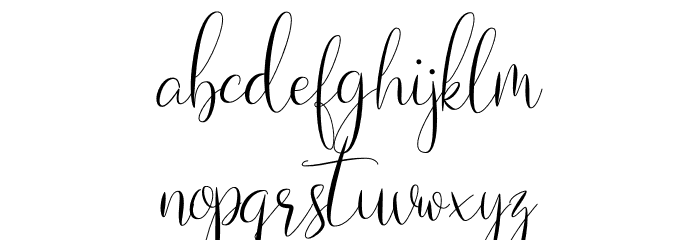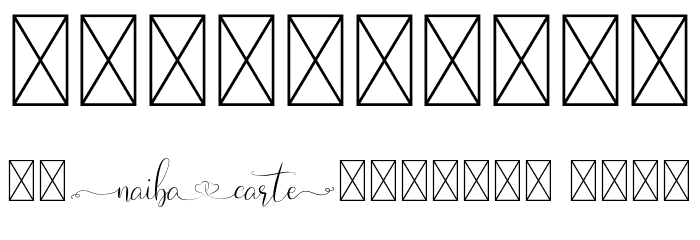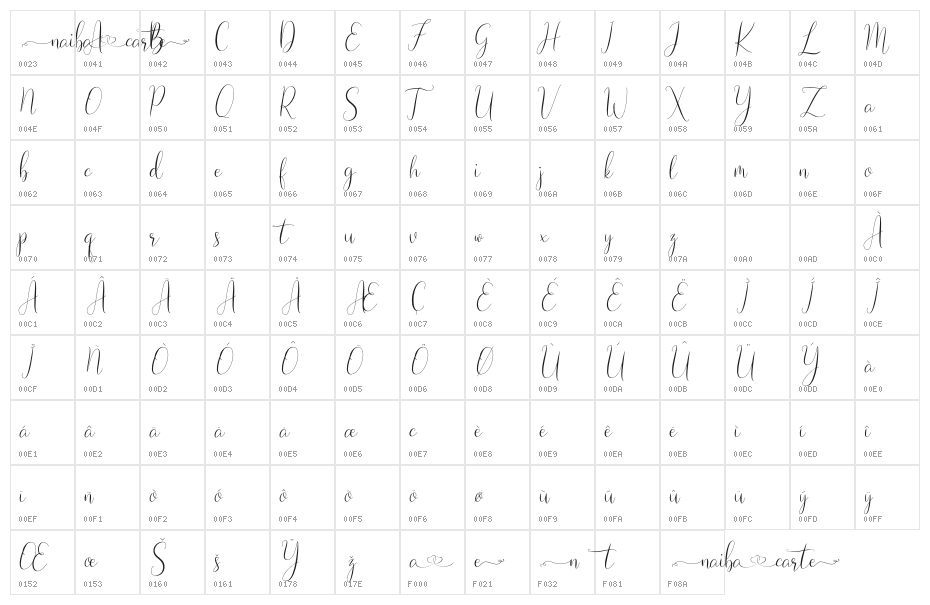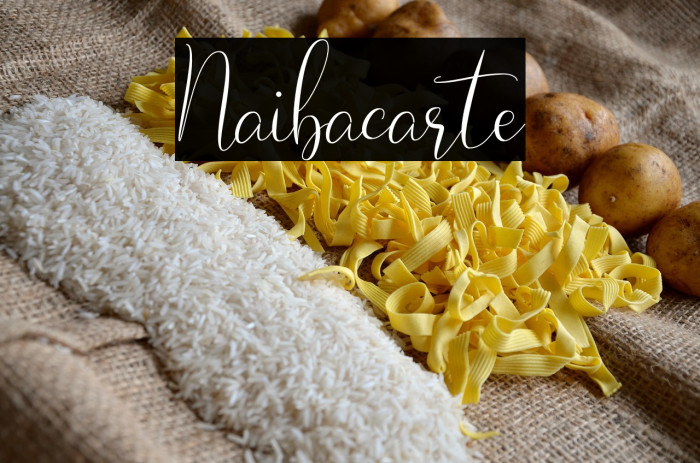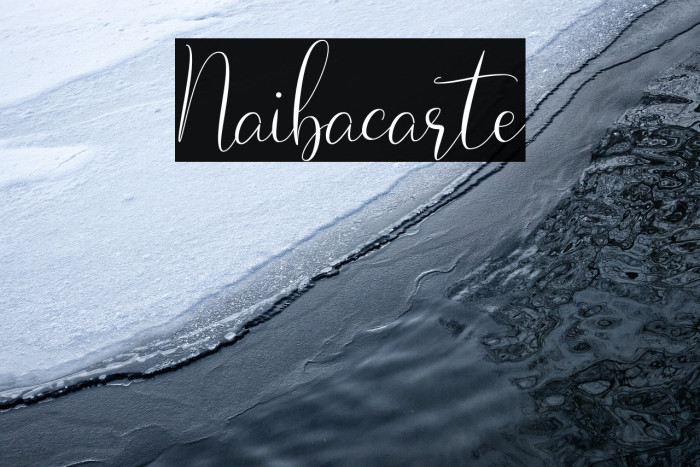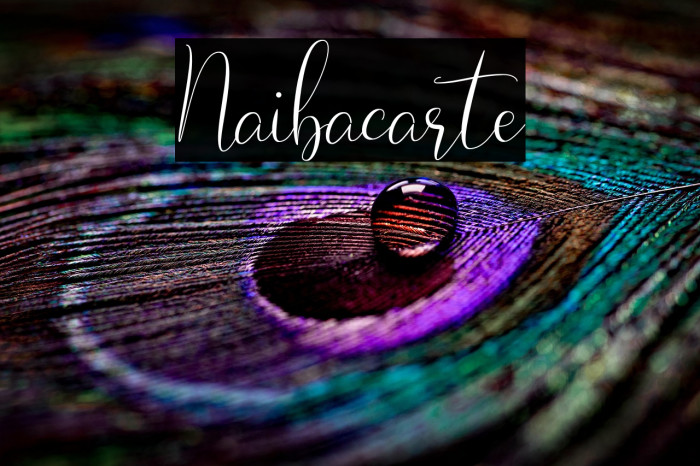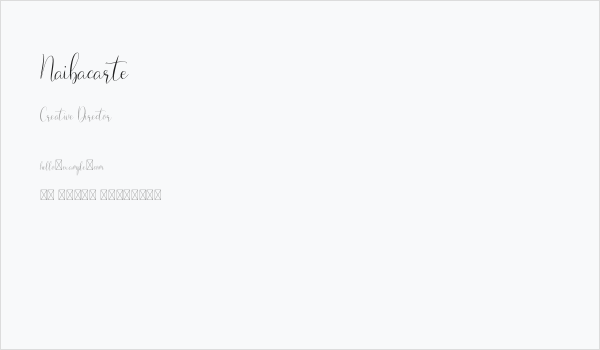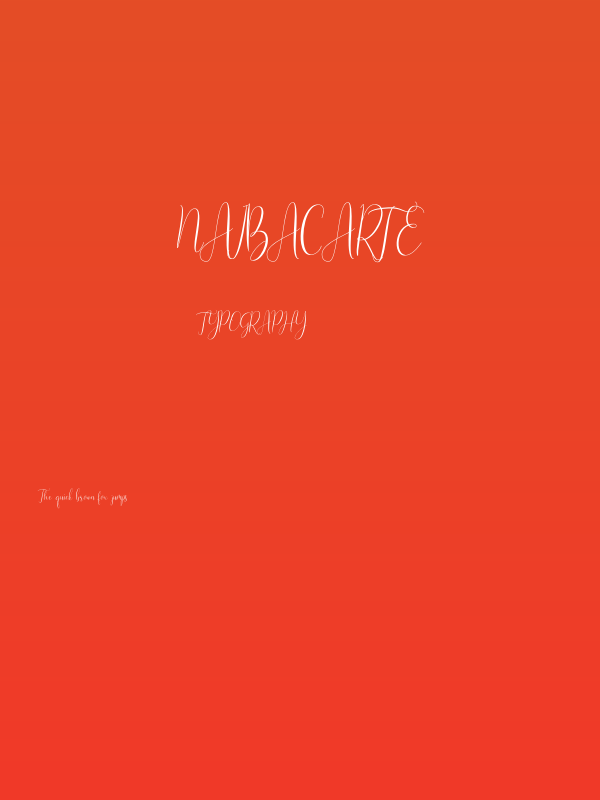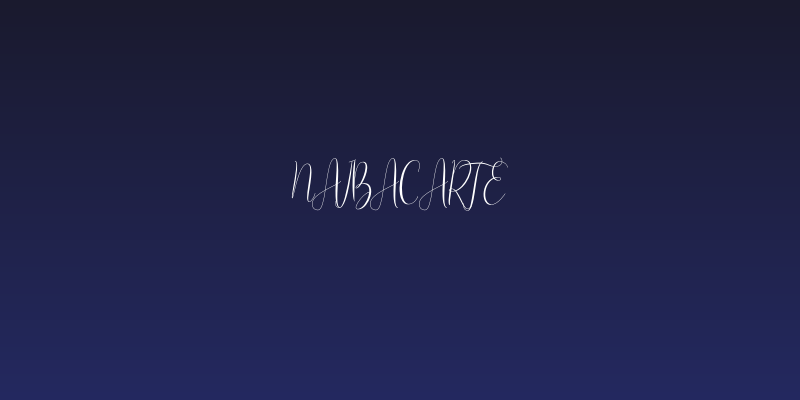
Naibacarte Font
This elegant script font features a flowing, cursive style with high contrast between thick and thin strokes. The uppercase letters are tall and graceful, with sweeping ascenders and descenders that add a sense of movement and fluidity. The lowercase letters are more compact but maintain the same elegant curves and loops. The font exudes a sense of sophistication and is perfect for projects that require a touch of class and elegance. The spacing between characters is moderate, allowing each letter to breathe while maintaining a cohesive look. This font is ideal for invitations, branding, and any design that seeks to convey a sense of luxury and refinement.
A sophisticated script font with elegant, flowing curves and high contrast strokes.
- Proposed Projects: Ideal for wedding invitations, luxury branding, elegant stationery, and high-end product packaging.
- Overall Style: Elegant
- Use Case: Invitations, Branding, Stationery